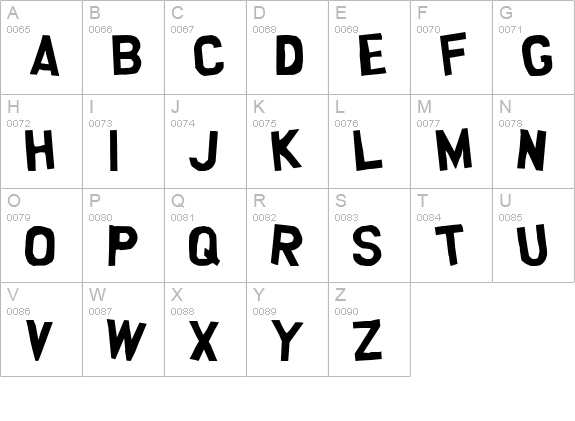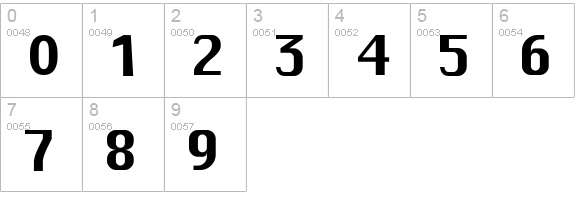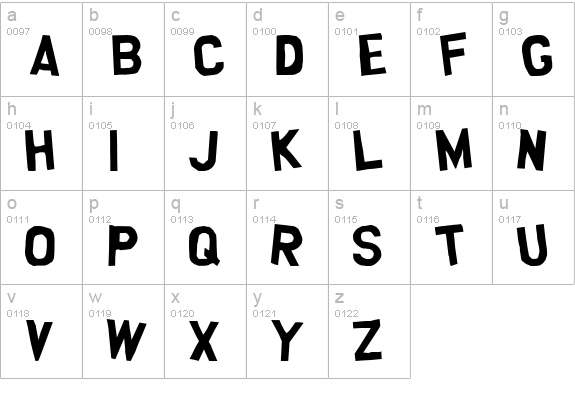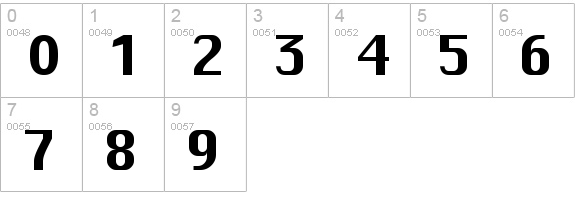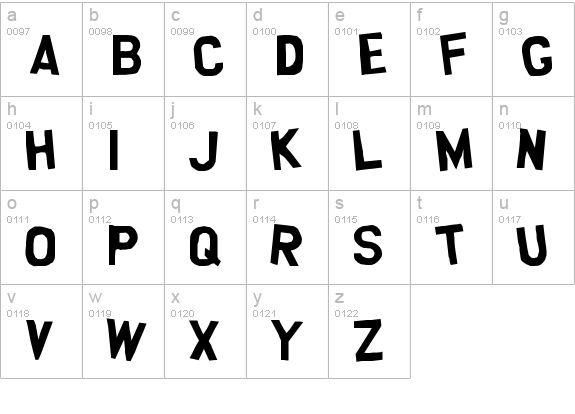
The Southpark font is a delightful and whimsical typeface that captures the essence of the beloved animated television series. With its playful and bold letterforms, this font brings to life the irreverent humor and satirical commentary that South Park is known for. What makes the Southpark font even more enticing is the fact that it is free! Yes, you read that right. This fantastic font is freely available to download at FontsMarket.com. Whether you are a fan of the show, a designer looking to add a touch of South Park flair to your projects, or simply someone who appreciates high-quality fonts, the Southpark font is a must-have. Featuring a wide range of characters, including uppercase and lowercase letters, numbers, and punctuation marks, the Southpark font offers versatility and endless creative possibilities. Whether you're designing posters, greeting cards, logos, or even social media graphics, this font will add a touch of animated charm to your work. With its clean lines and distinct personality, the Southpark font is sure to make a lasting impression. Its bold and playful nature perfectly captures the spirit of the show, making it a great choice for anything from comedic projects to bold headlines. So go ahead and download the Southpark font for free from FontsMarket.com and let your creativity soar!